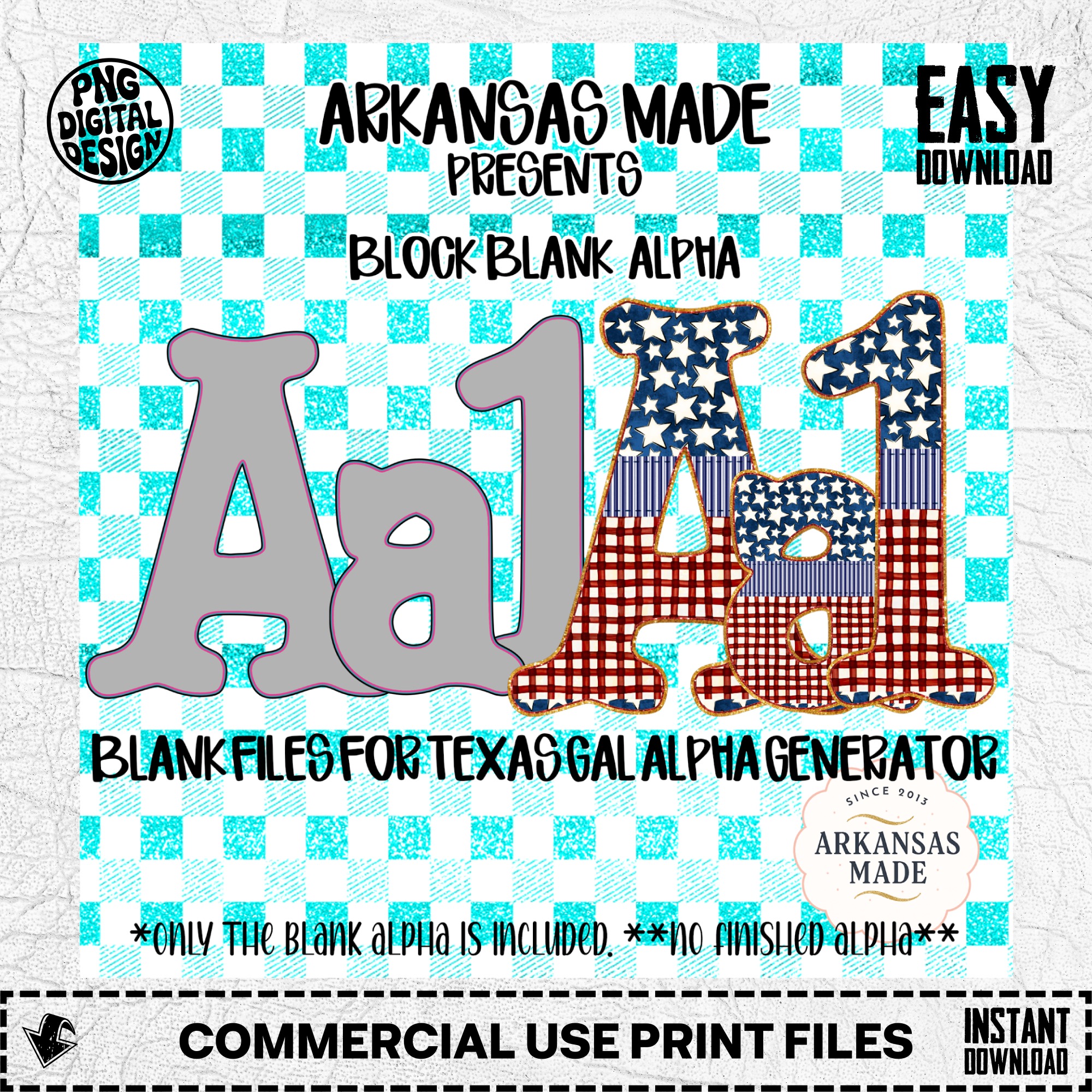
Block blank alpha Digital PNGs for Texas Gal Alpha Generator | Blank Outline Letters & Numbers | diy Crafting Font | Custom Design Clip Art
Unlock endless creativity with our BLOCK BLANK ALPHA Digital PNGs, specifically designed for the Texas Gal Alpha Generator. Perfect for crafters and designers! These versatile blank outline letters and numbers provide the perfect foundation for your personalized projects. Create custom tumblers, unique apparel, or special gifts for any occasion. Ideal for DIY enthusiasts, small business owners, and anyone seeking high-quality digital assets to bring their vision to life.